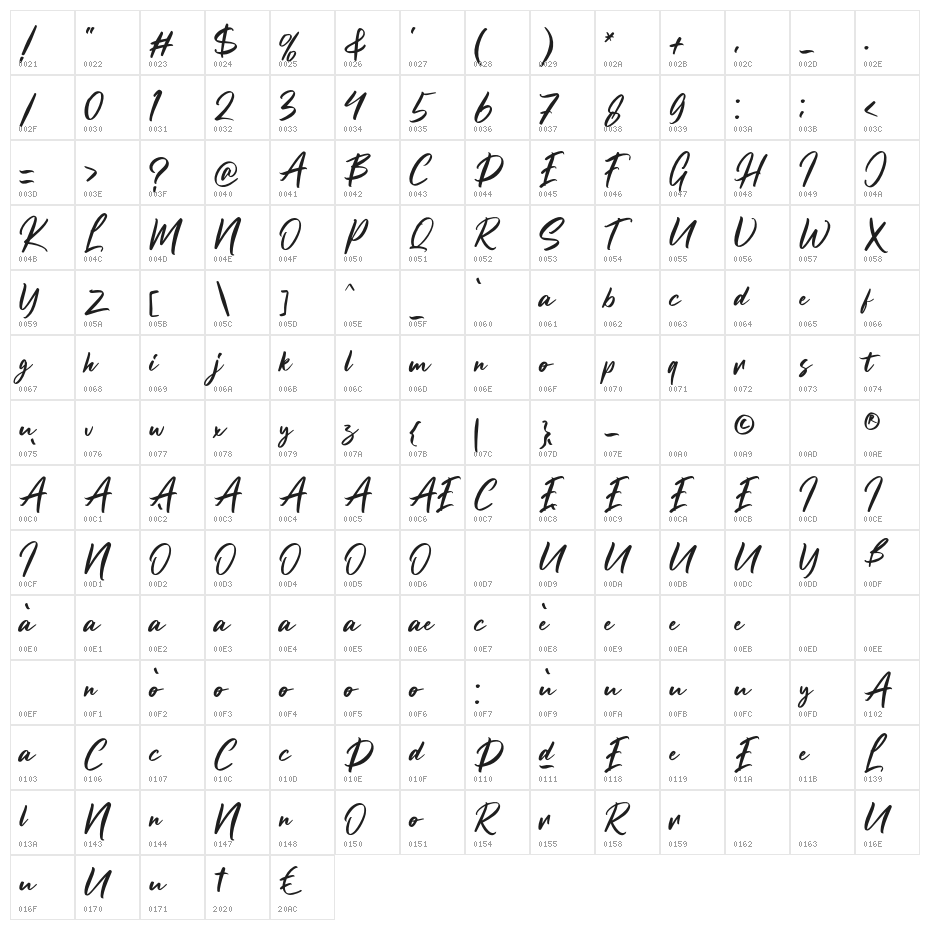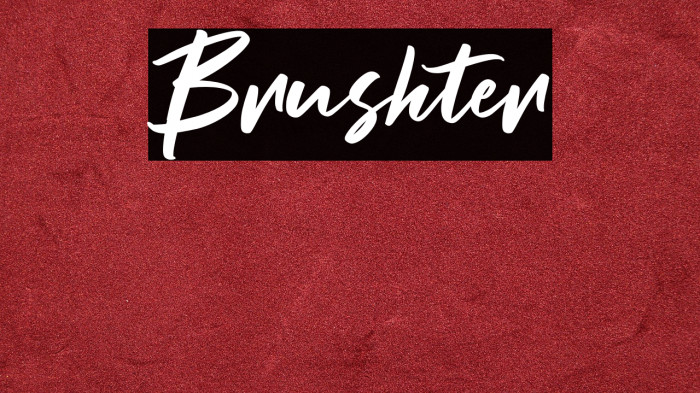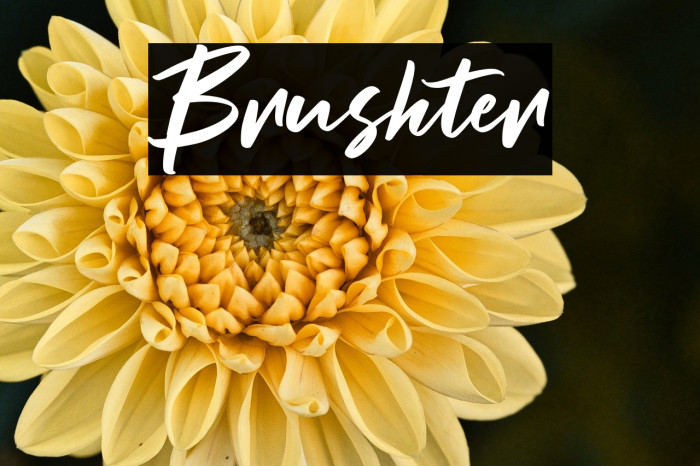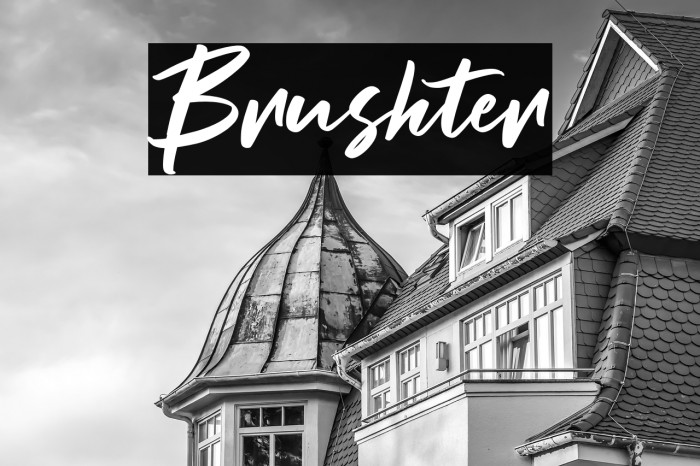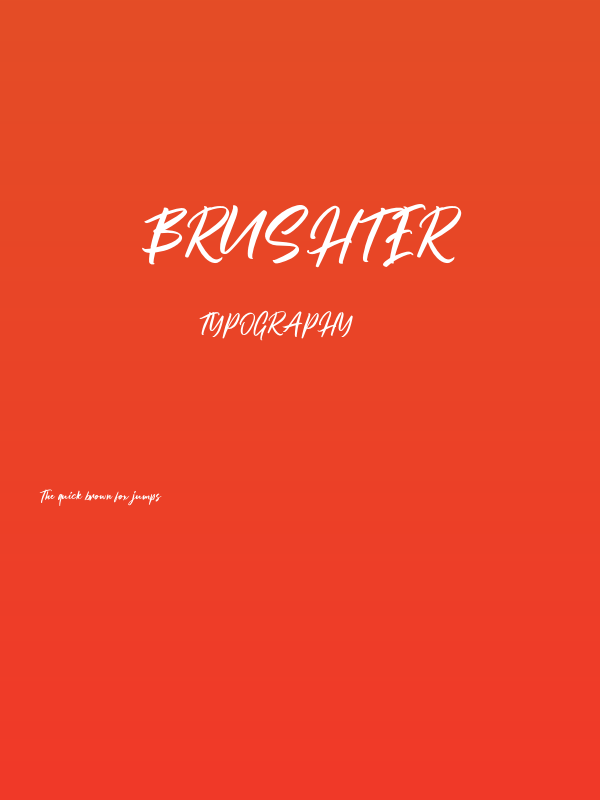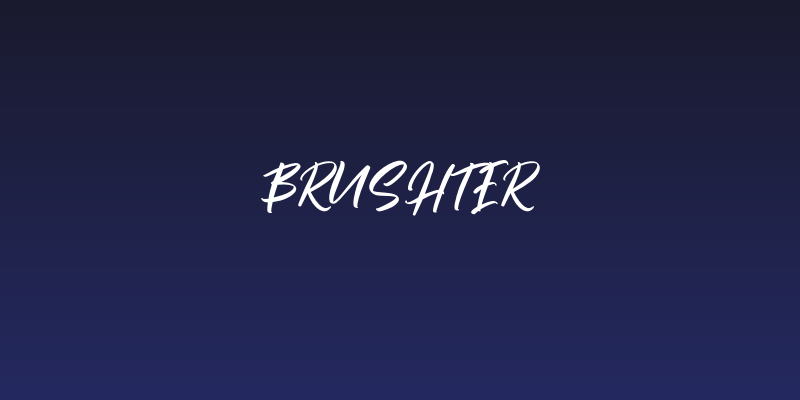
Brushter Font
Brushter Description
This font exudes a dynamic and energetic style, characterized by its bold, sweeping strokes and fluid, cursive-like appearance. The letters are crafted with a brush-like texture, giving them a hand-painted feel that adds a personal touch to any design. The uppercase letters are tall and slightly slanted, while the lowercase letters maintain a consistent flow, enhancing the font's overall cohesiveness. Numbers and special characters follow the same stylistic approach, ensuring uniformity across all elements. The font's lively and artistic nature makes it ideal for creative projects that require a touch of elegance and flair.